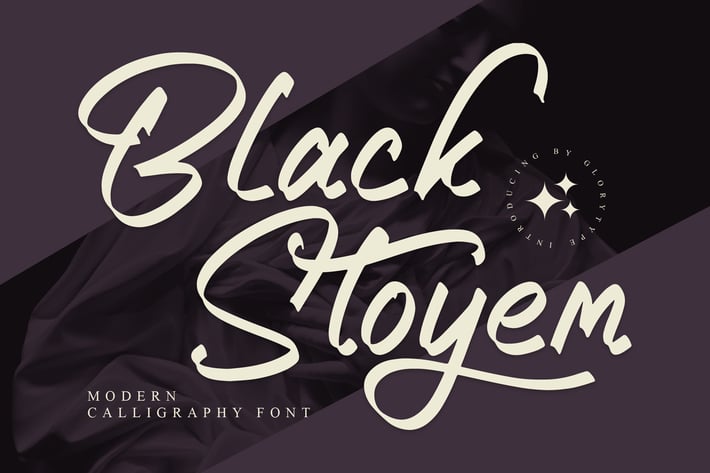
Black Stoyem Modern Calligraphy Font
Black Stoyem is a modern calligraphy font that combines bold strokes with elegant curves. Designed to bring a stylish handwritten feel, it’s perfect for adding a personal and creative touch to any project. Whether for digital or print, this font delivers charm and sophistication.
+ Modern calligraphy style
+ Smooth handwritten strokes
+ Elegant and versatile design
+ Strong readability in all sizes
+ Works for both digital and print projects
Add elegance and personality to your designs with Black Stoyem — the modern calligraphy font made to impress.